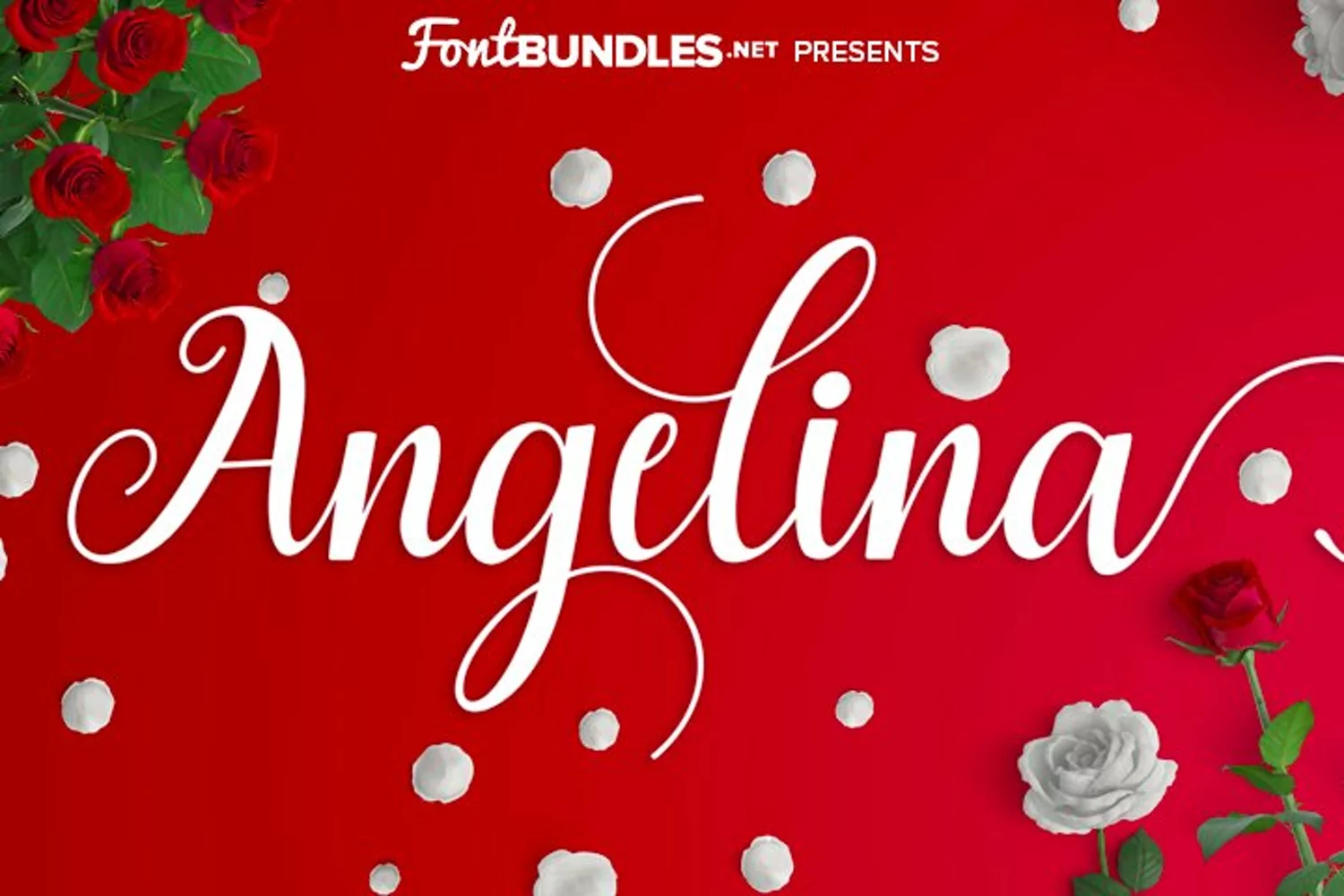
Angelina is a fresh and modern script with a handmade calligraphy style. Sweetly bouncing across the page with it's flowing baseline, Angelina is simply lovely. With alternates, glyphs, and variations you can create something amazing with Angelina. Start those wedding invitations now that you've found the perfect script font!